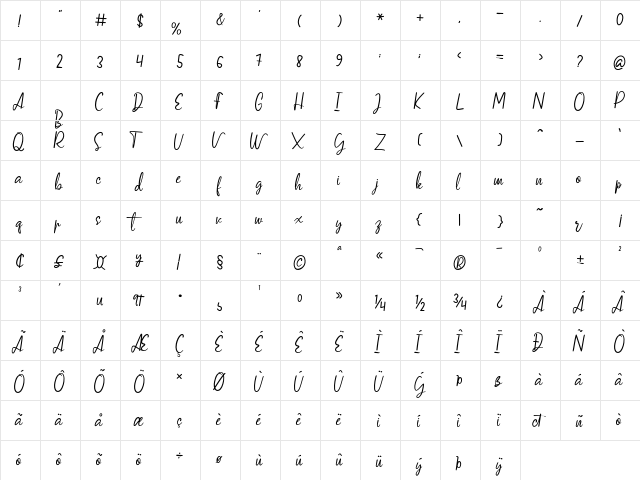
VerticaScripts Regular Font Preview
VerticaScripts Regular
Design Context for VerticaScripts Typeface
VerticaScripts brings a calligraphic fluidity to the page — its connecting strokes and expressive curves give it an unmistakably human quality.
Font Pairing: Combine VerticaScripts with a simple geometric sans for maximum contrast — the tension between flowing curves and clean structure is a classic typographic pairing.
Pro Tip: Use VerticaScripts for short runs of text — names, titles, or taglines. Extended body copy in script faces tires the eye quickly.